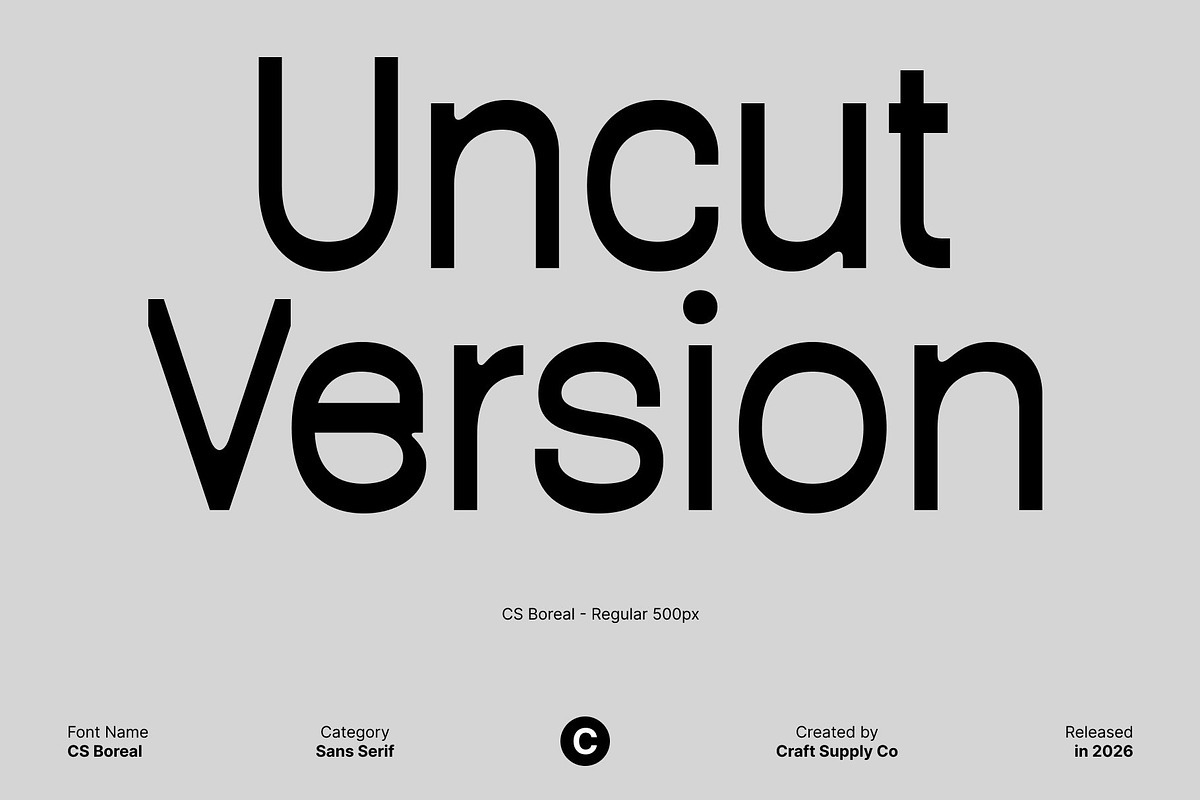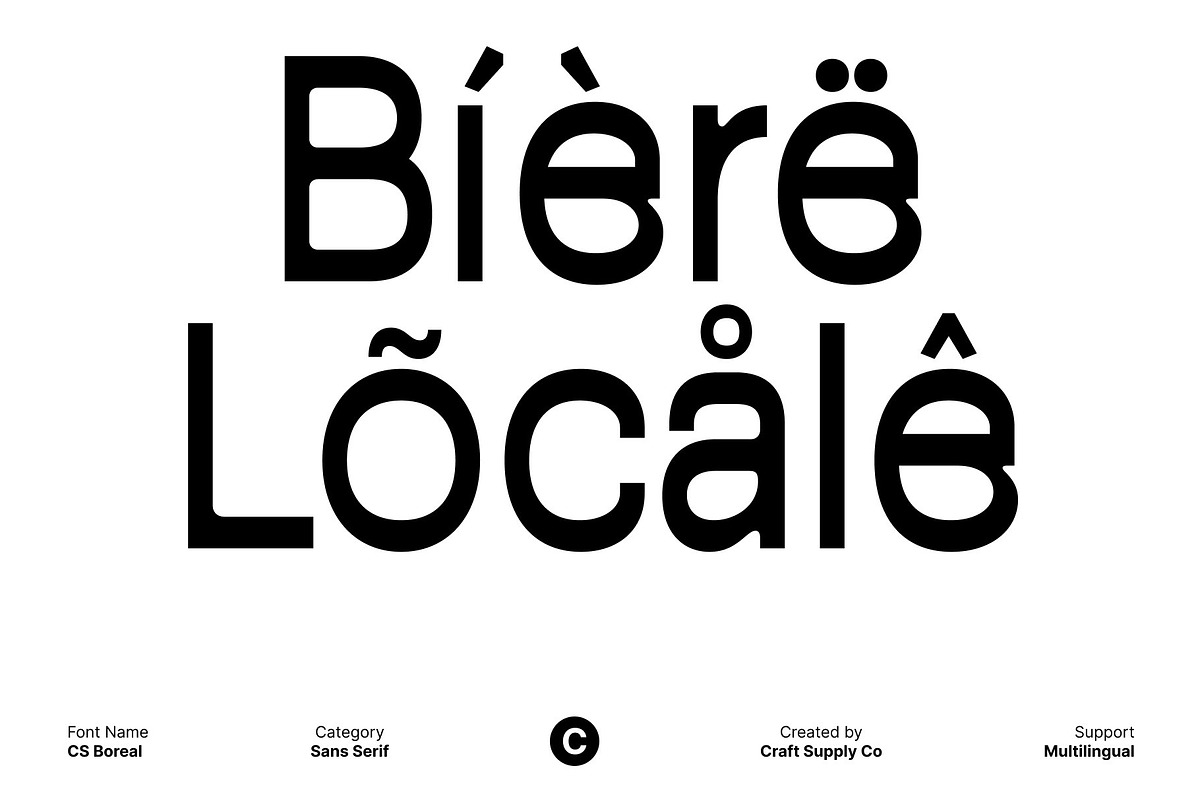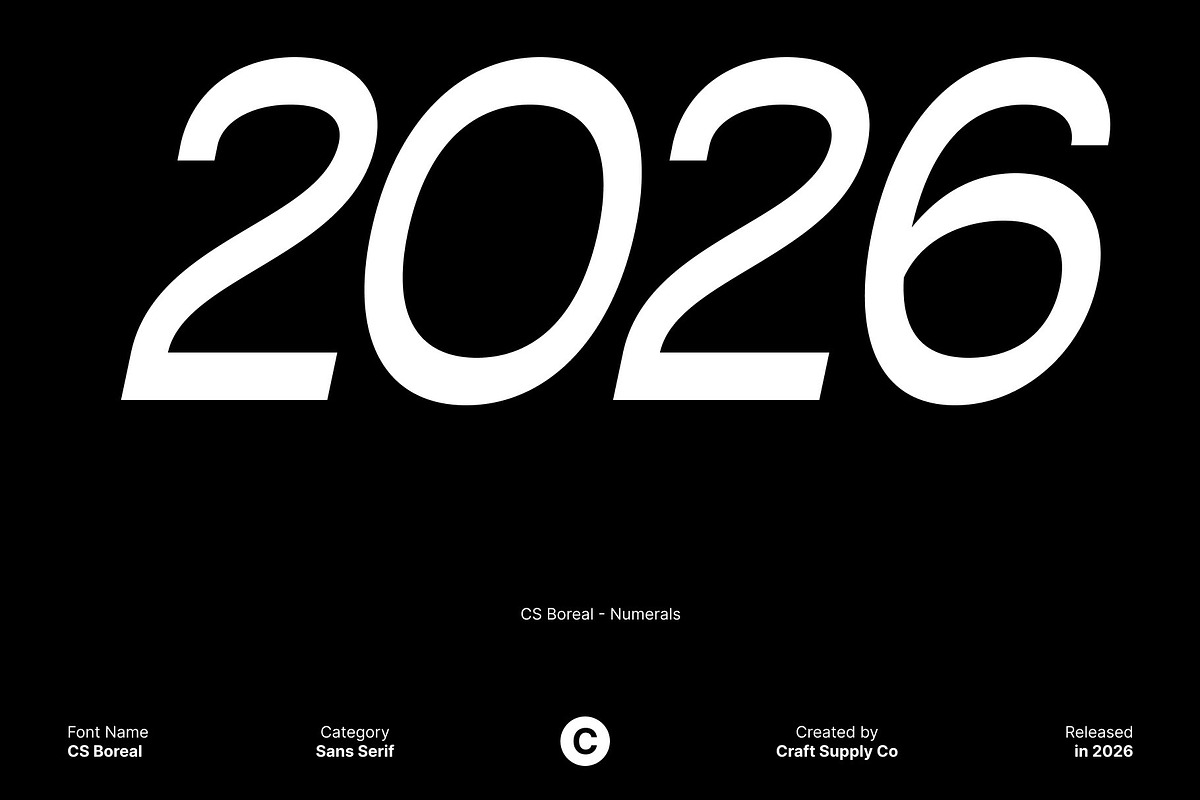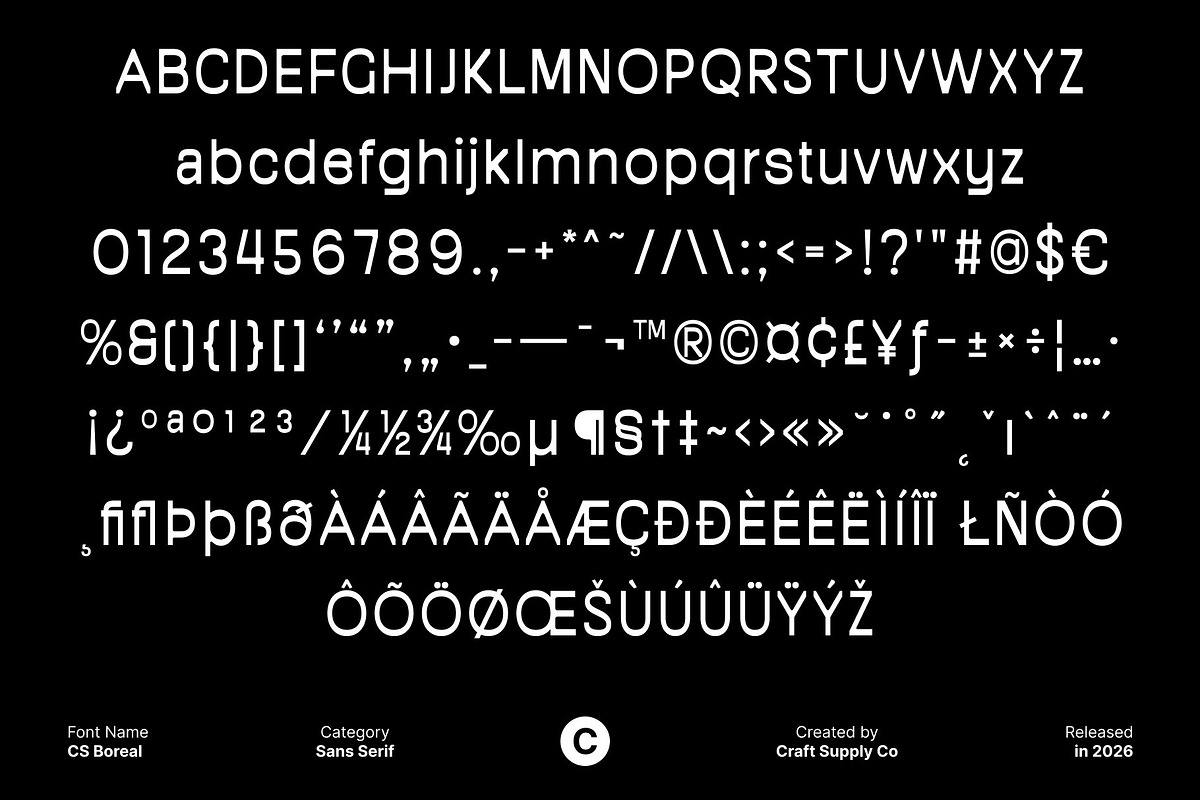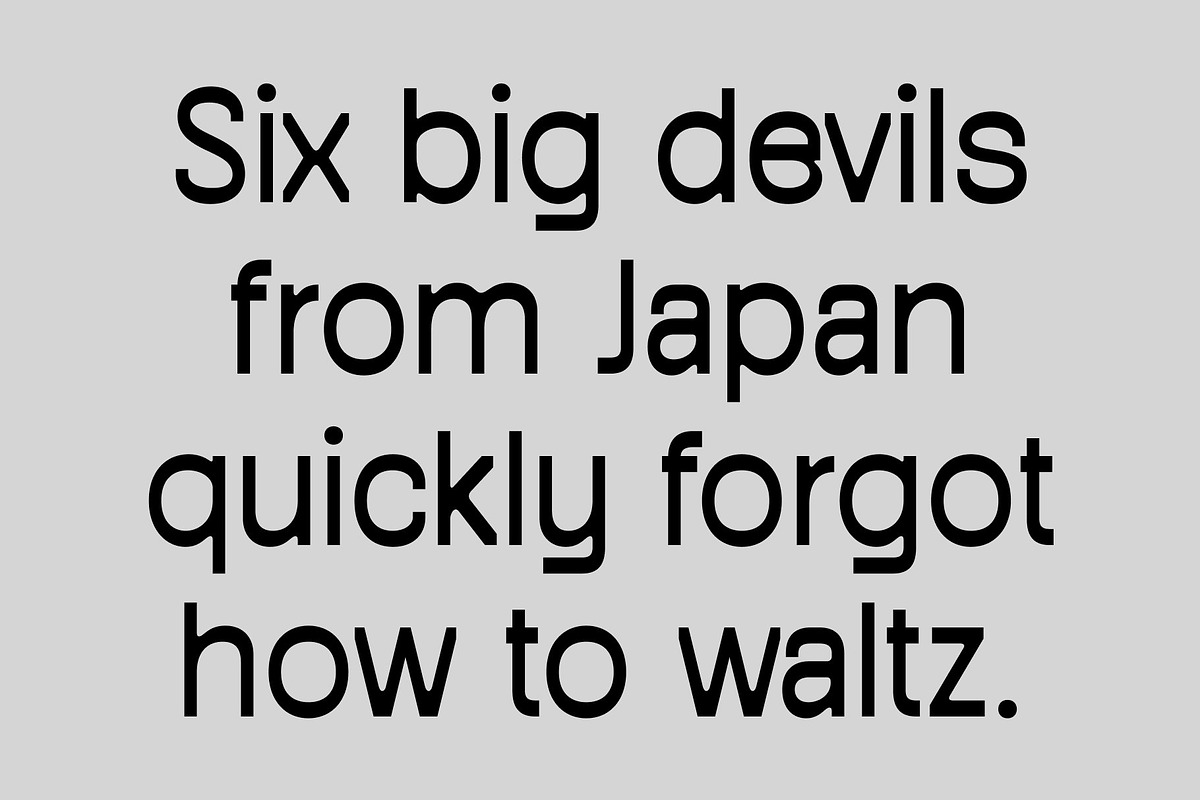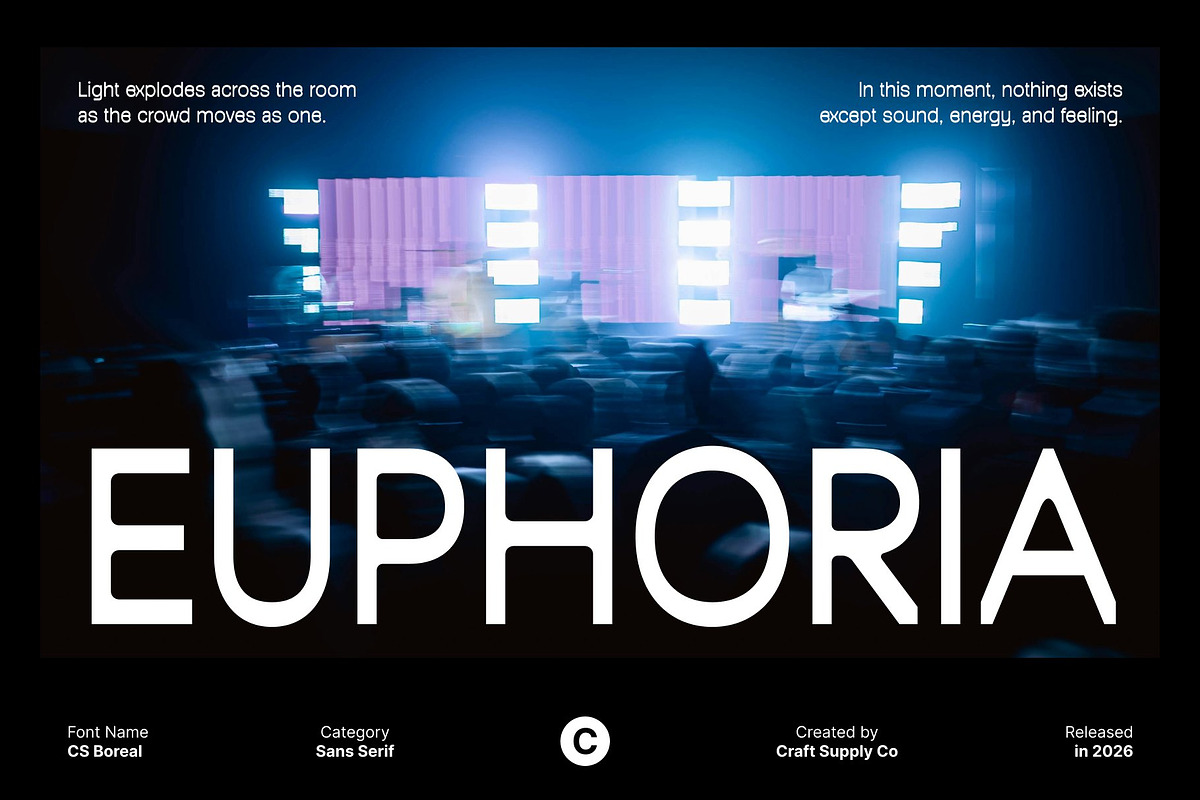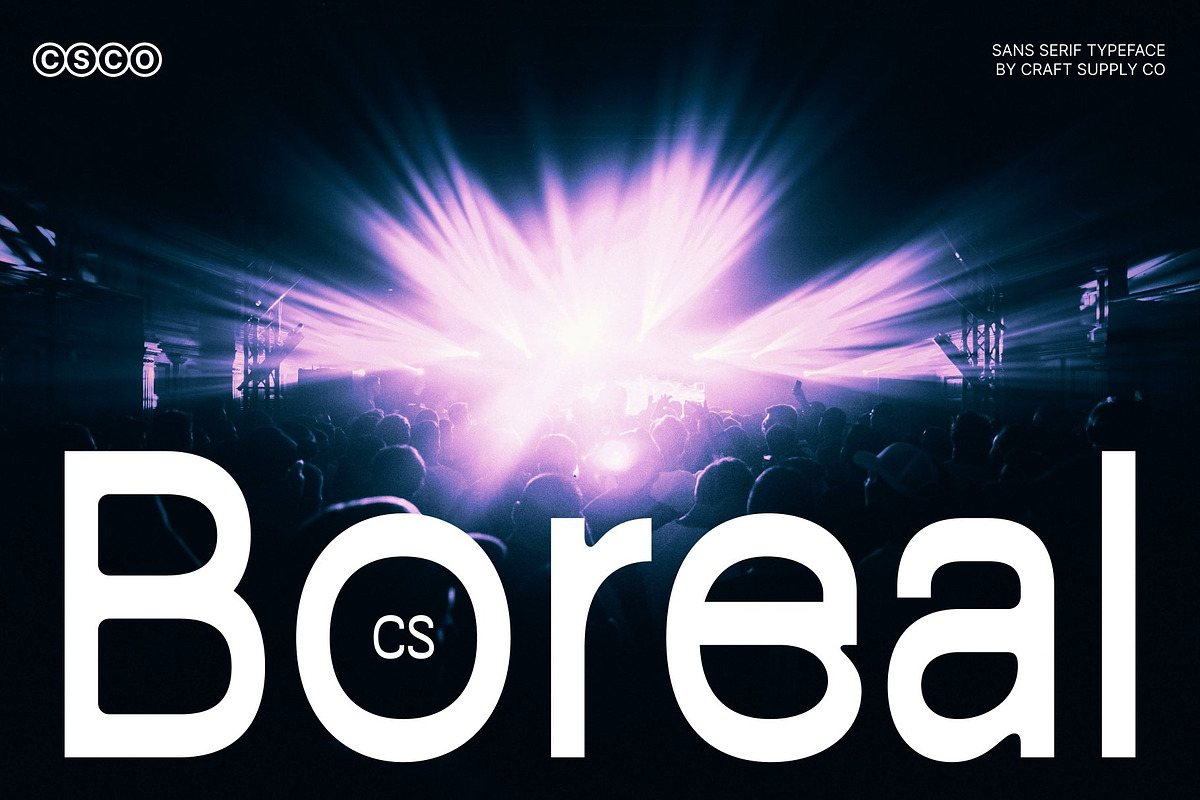
CS Boreal – Modern Sans Serif
CS Boreal – Modern Sans Serif with Fresh Quirky Character
Clean and Contemporary Sans Serif Font This is a modern sans serif font that blends clean construction with quirky, distinctive shapes. Designed to feel fresh and current, it delivers a contemporary look that stands out without sacrificing clarity. Its subtle uniqueness gives the font personality while maintaining a polished and professional appearance.
Quirky Details with Clean Structure The letterforms of this font are built on a clean, modern foundation, enhanced by playful quirks that add visual interest. These details prevent the design from feeling rigid or generic, resulting in a font that feels professional yet relaxed. The balance between precision and character makes it highly adaptable across creative and commercial projects.
Fresh, Modern, and Approachable This font offers a modern aesthetic that feels confident and approachable rather than stiff. Its fresh style works beautifully in designs that need to communicate innovation, creativity, and clarity at the same time. This makes it especially effective for brands and visuals targeting contemporary audiences.
Ideal for Branding and Digital Design Perfect for branding, posters, logos, and digital design, this font performs well in both headlines and supporting text. Whether used in print or on screen, it brings a modern, stylish presence that feels clean, expressive, and professionally refined.